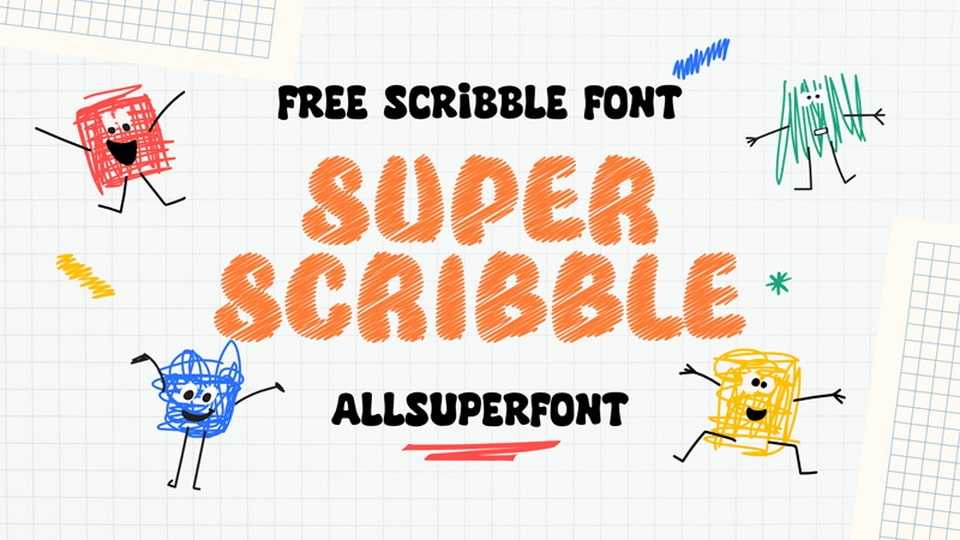
Download Super Scribble font, a playful hand-drawn scribble typeface that captures the essence of carefree creativity. It features whimsical, uneven letterforms that mimic the charm of doodles.